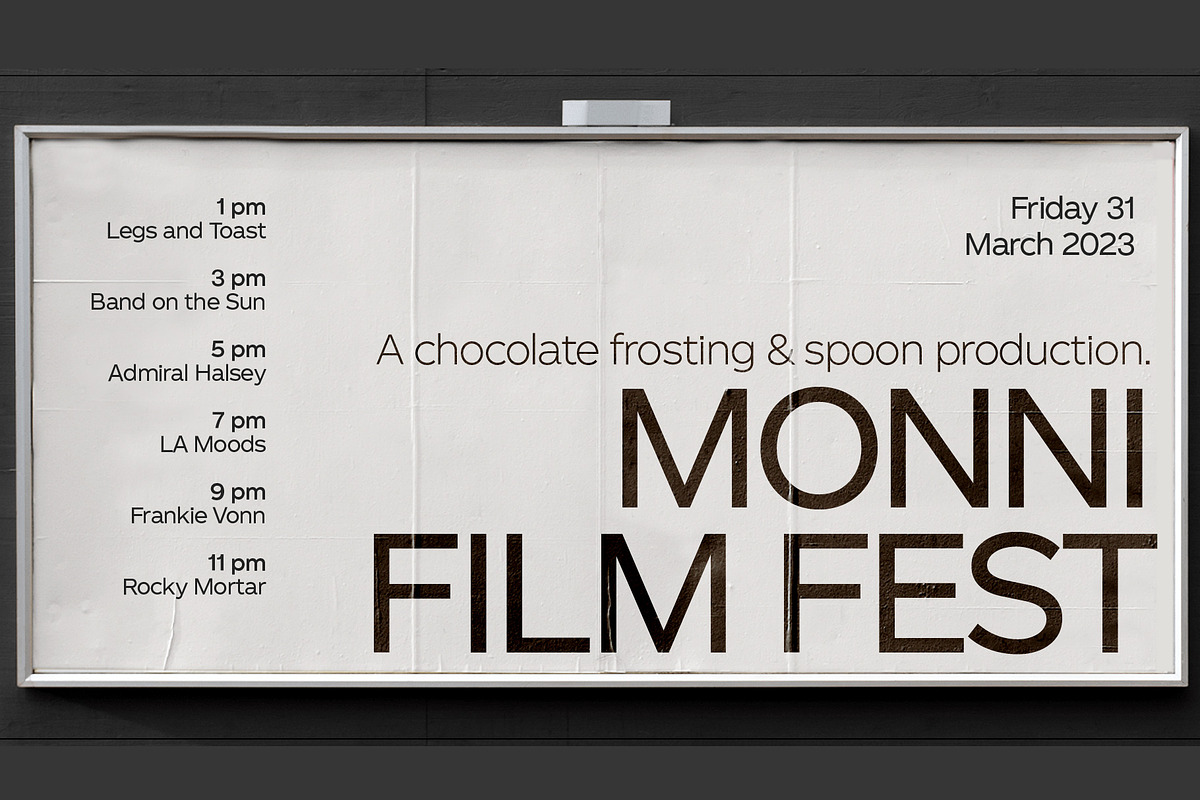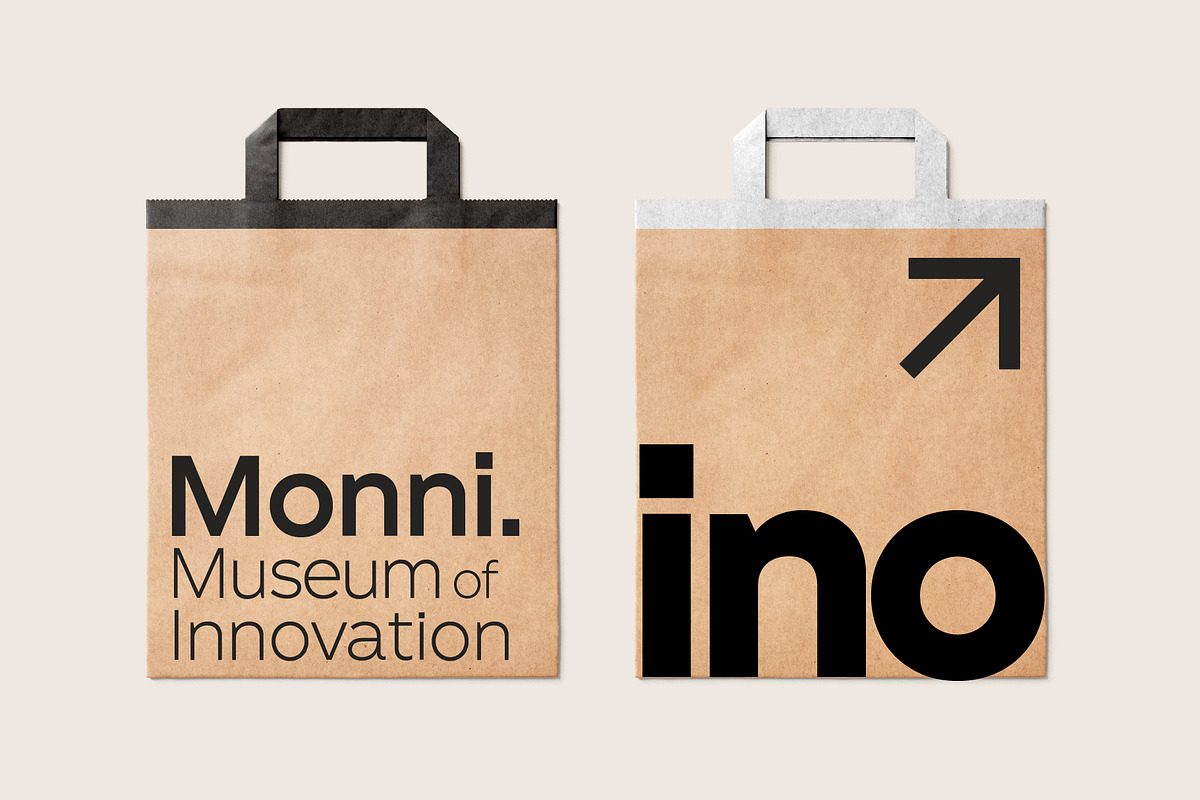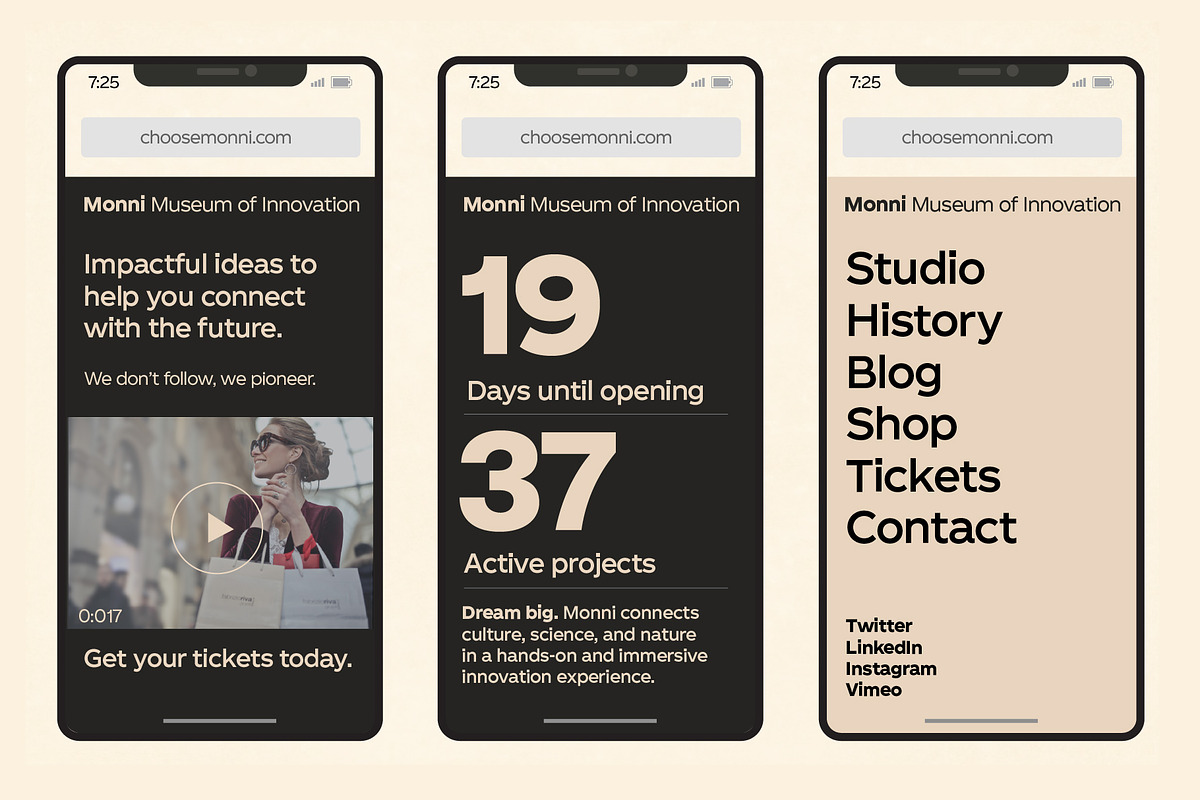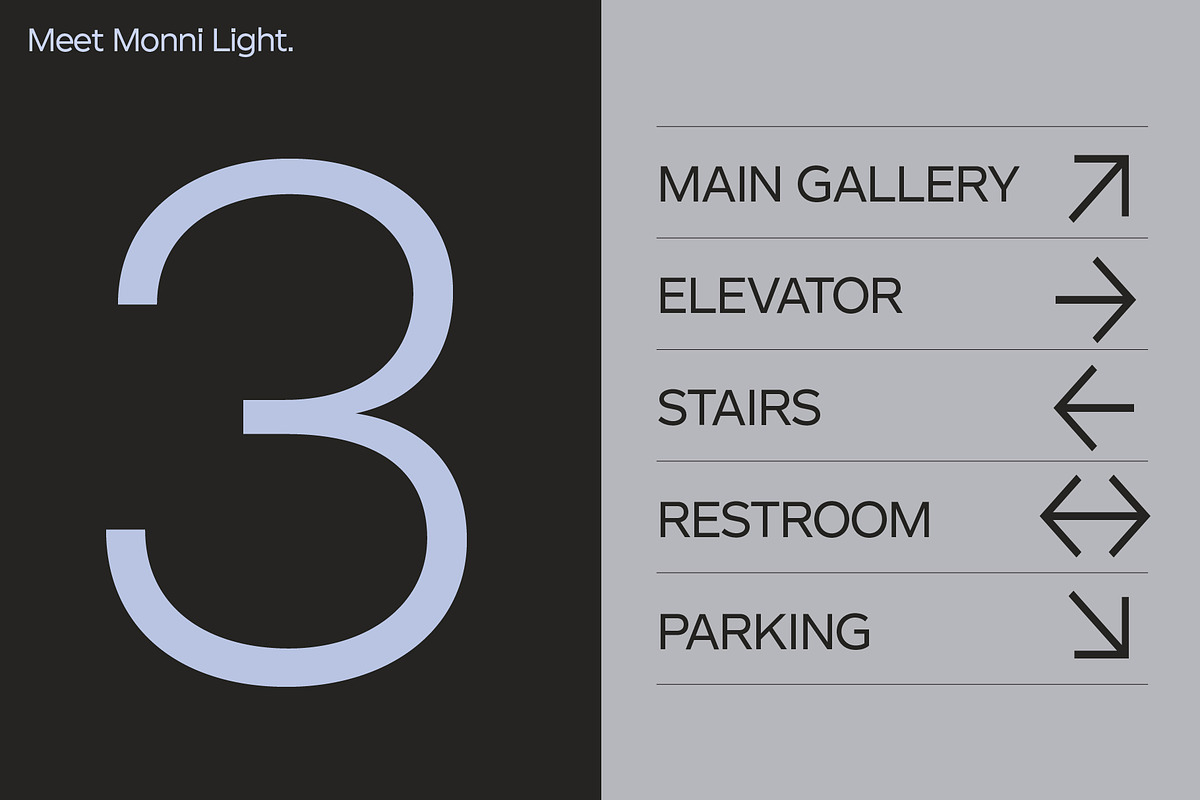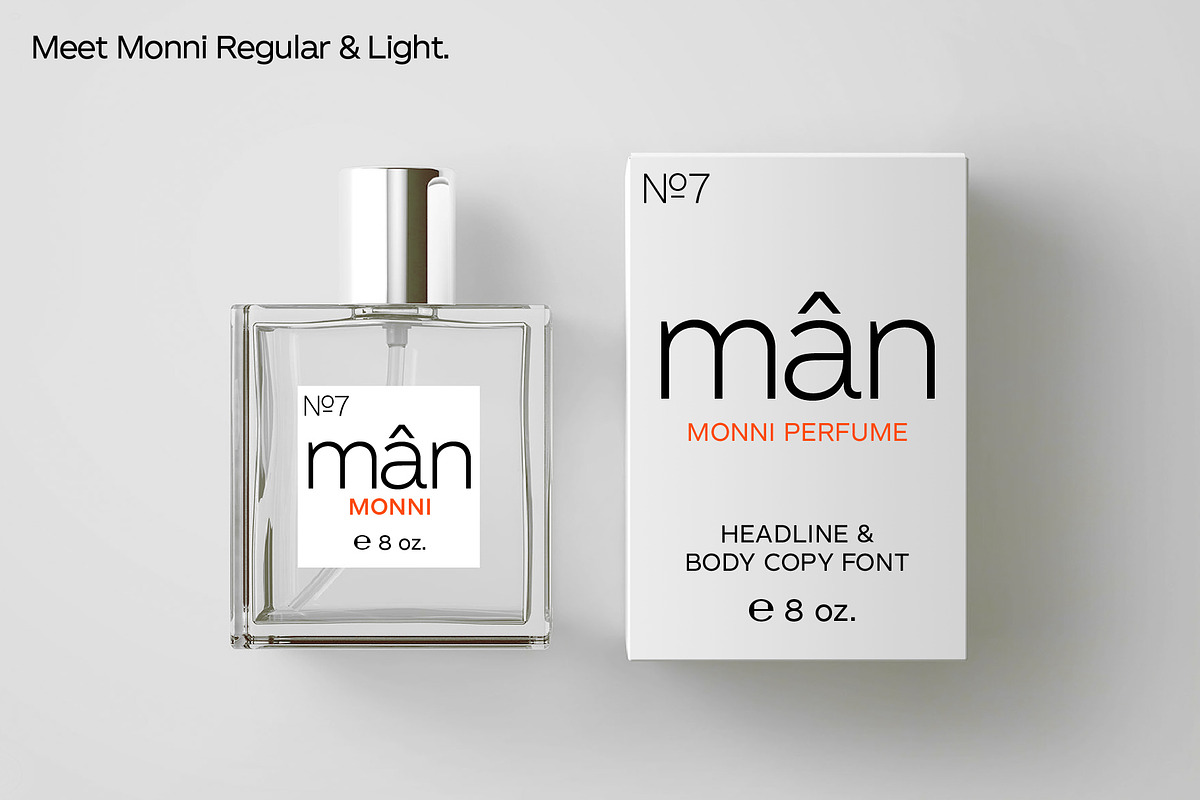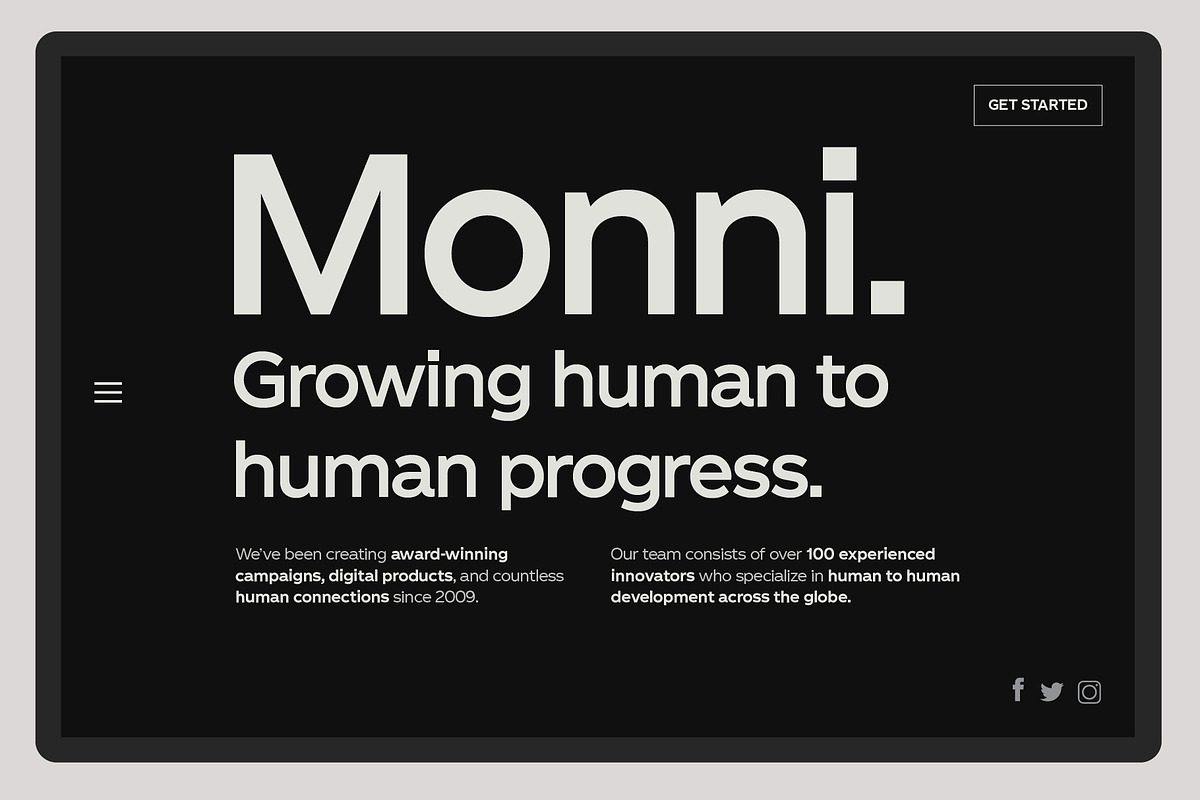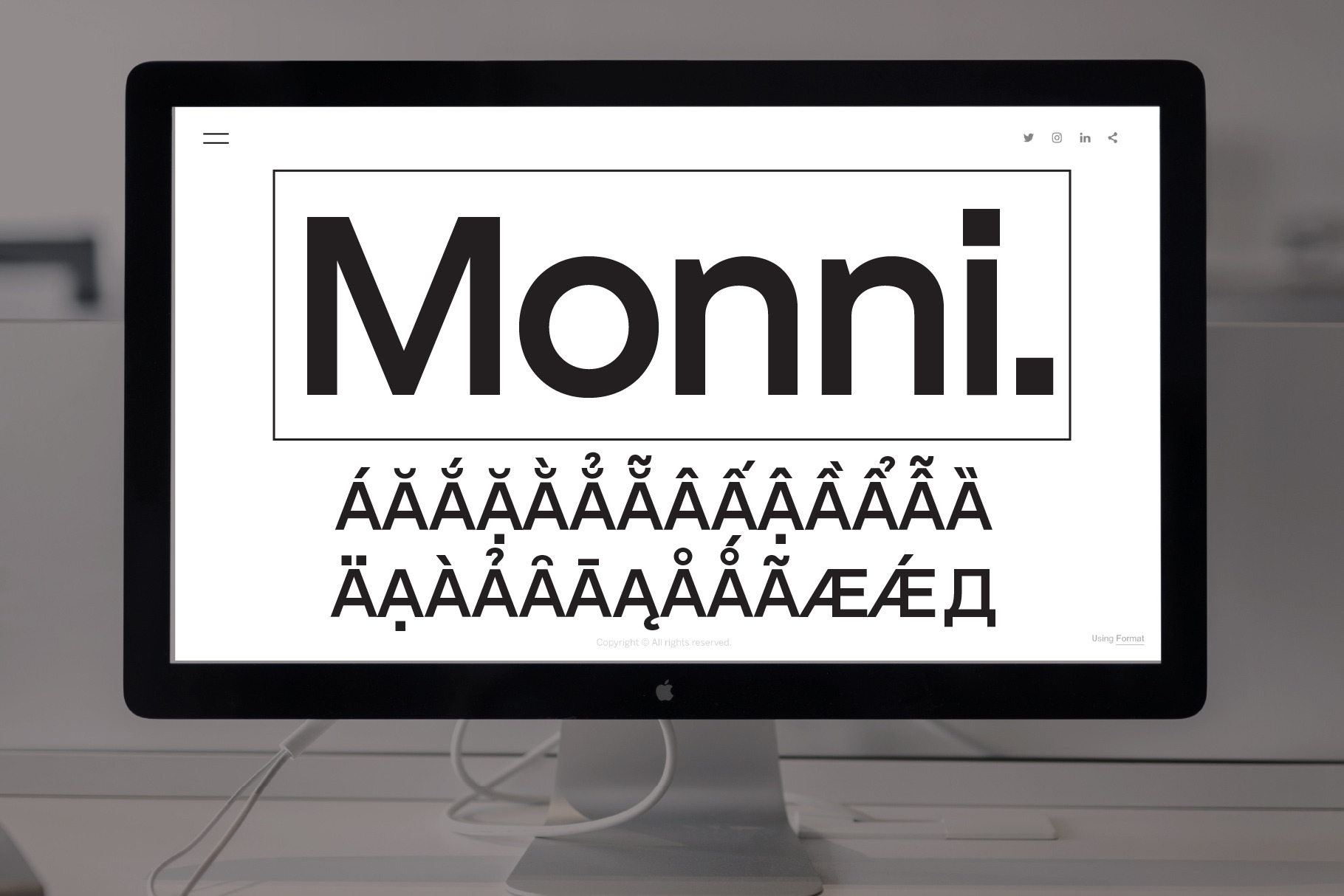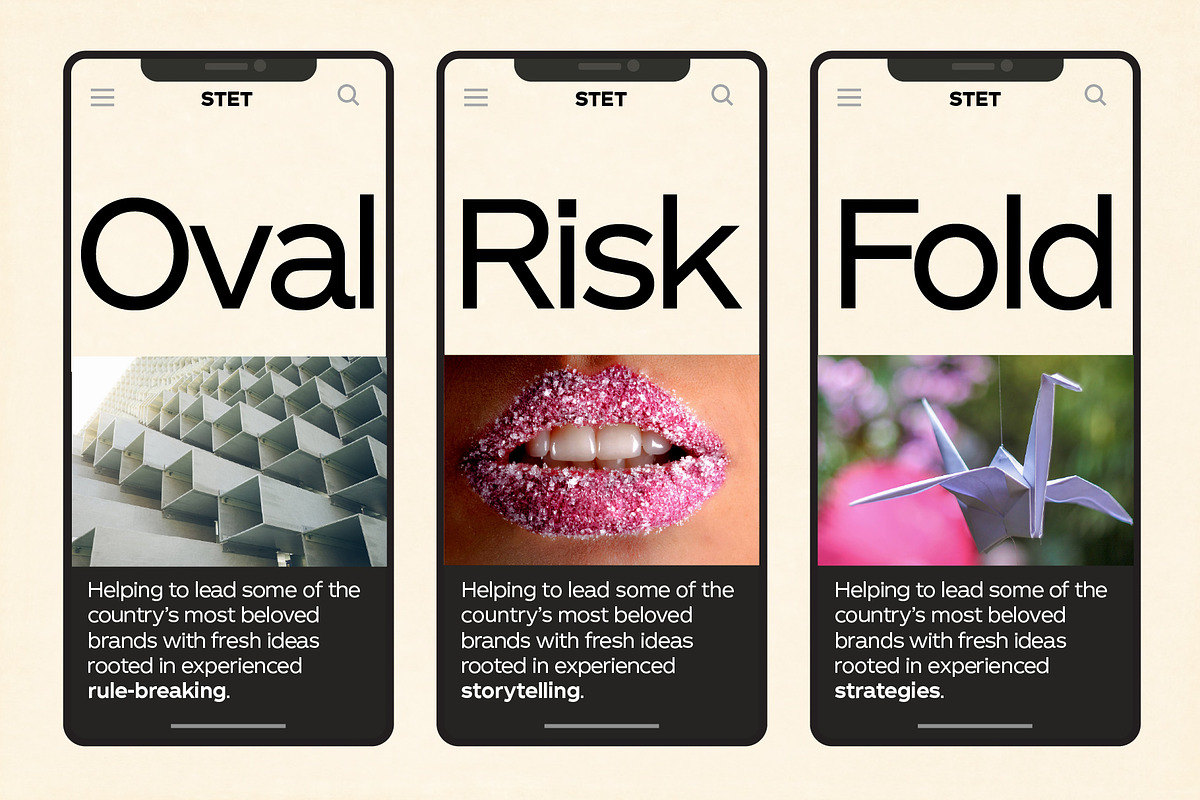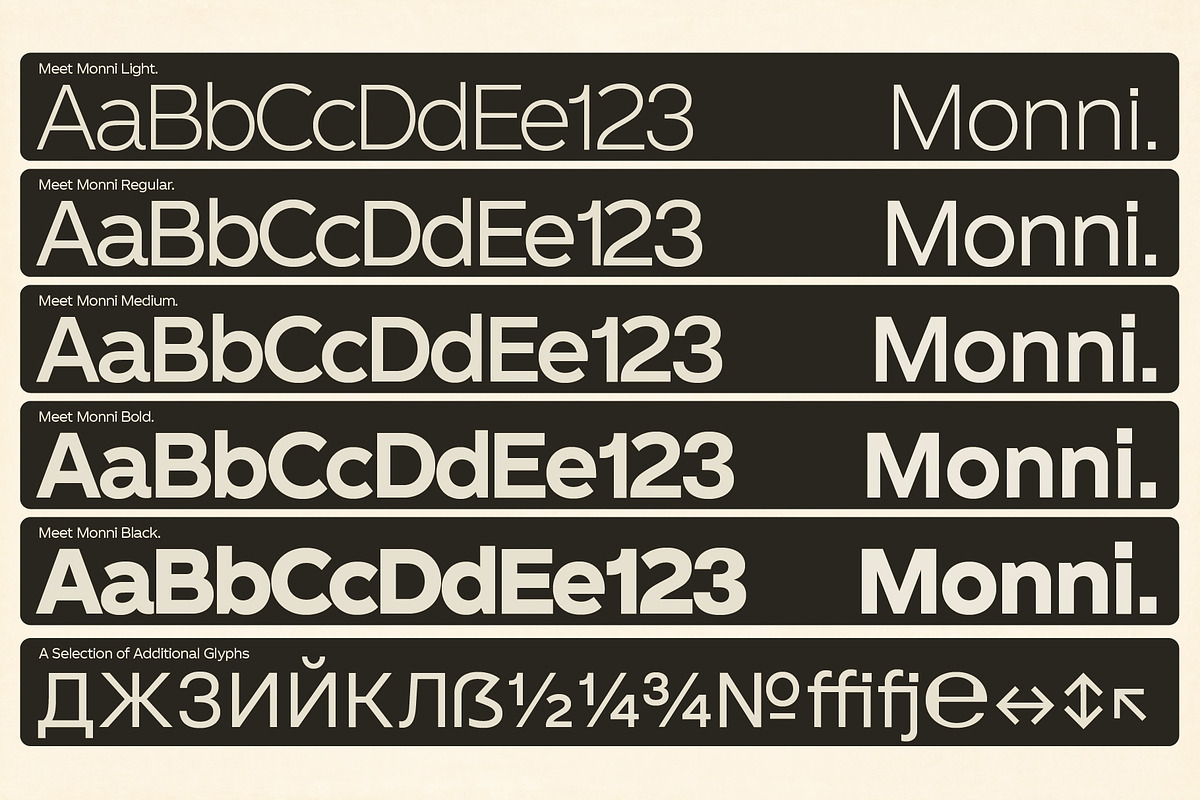
Monni Sans Serif
Meet Monni, a clean and balanced sans-serif typeface family—fresh and modern, ready to be your next campaign font. Monni has finely crafted angles, complemented by confident squared punctuation. This sans-serif has a universal appeal, accentuated by select modern angles. Perfect for omnichannel marketing with its memorable lines, clear consistency, and optimization for screens. Noteworthy for both headline and body copy needs. Monni is sure to help with brand retention. Monni speaks 86 languages, including a Ukrainian character set. Ten styles, from light to black. With nearly 800 total glyphs, Monni’s versatility will make an excellent addition to any professional font collection.